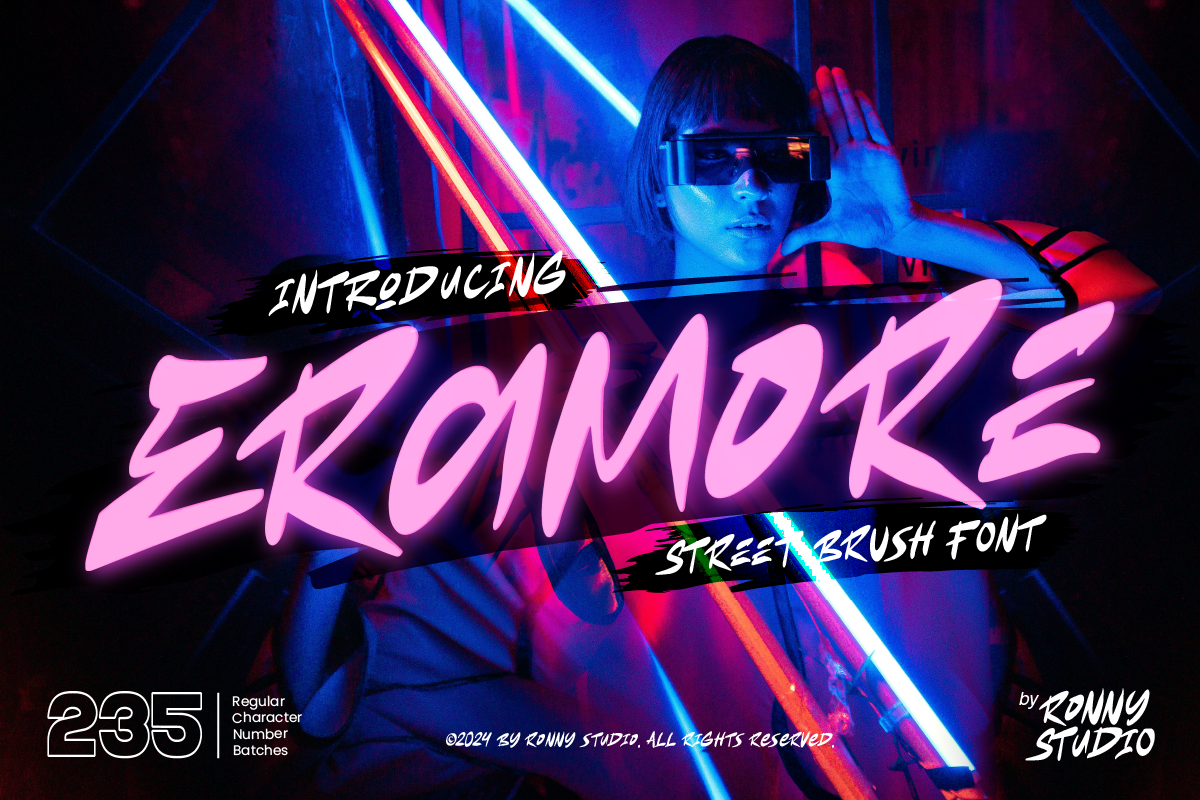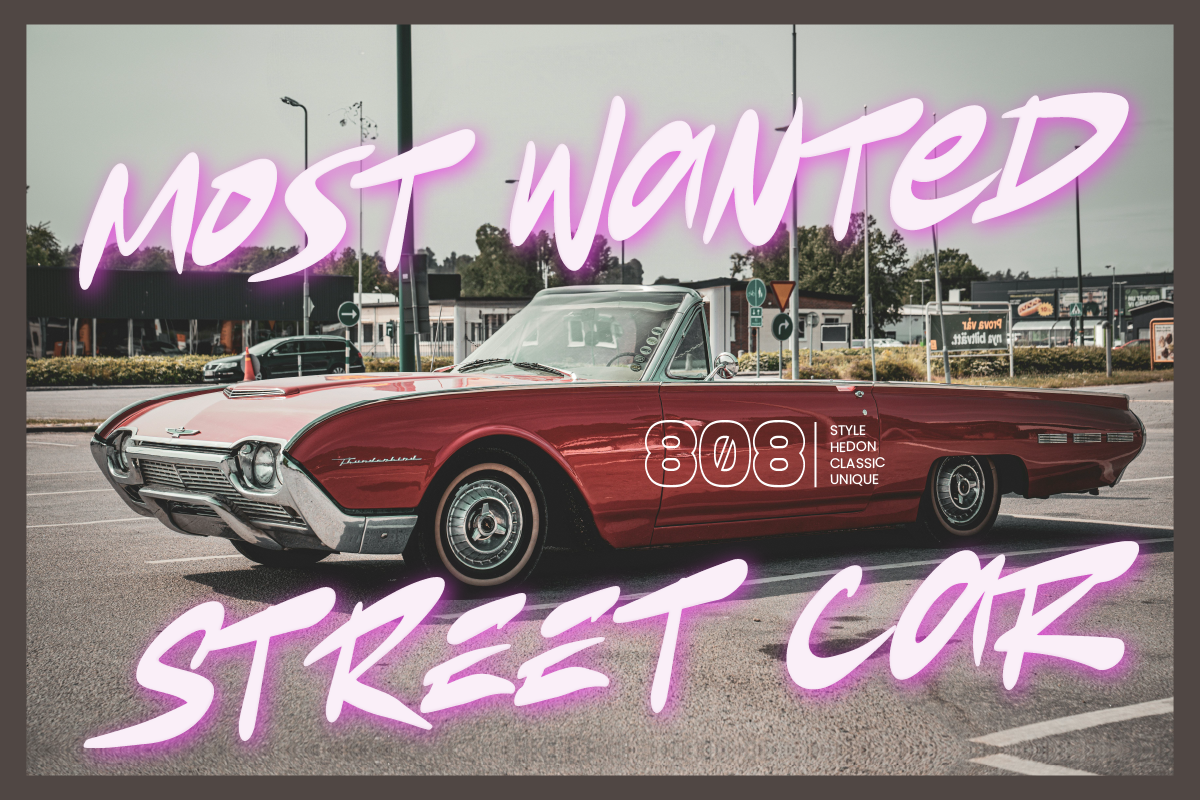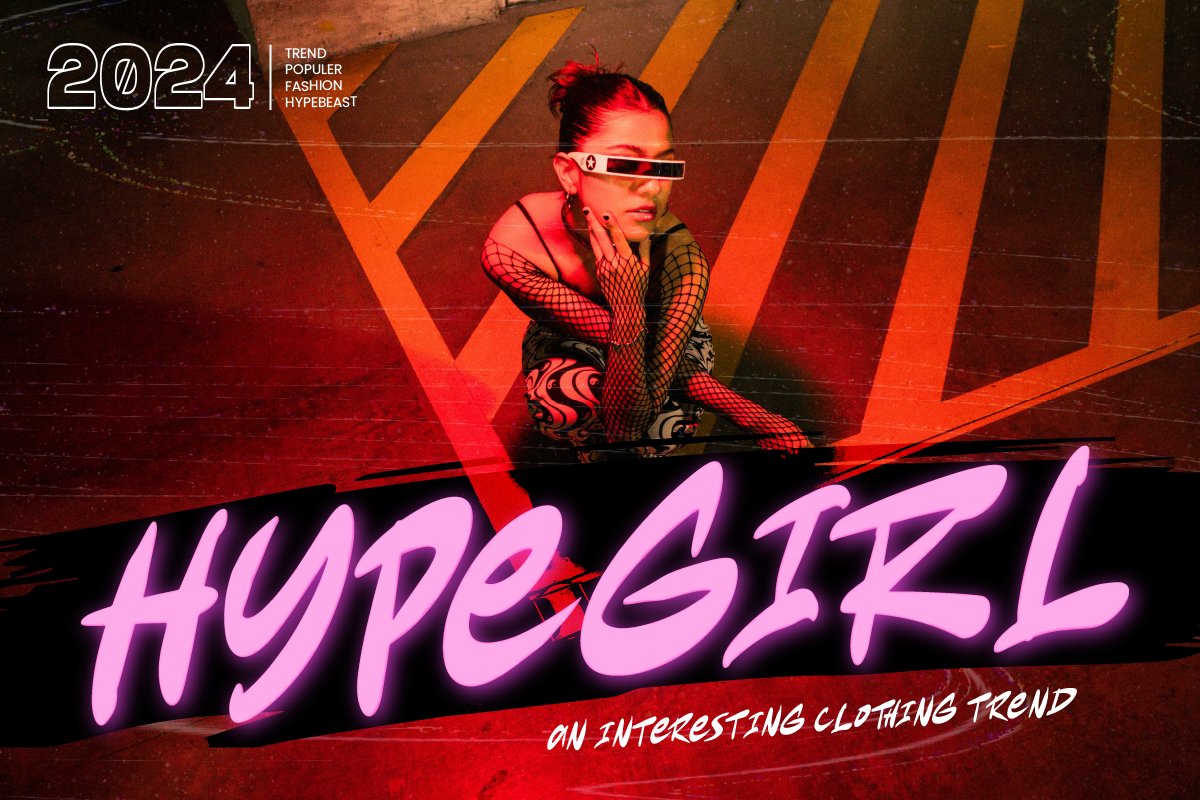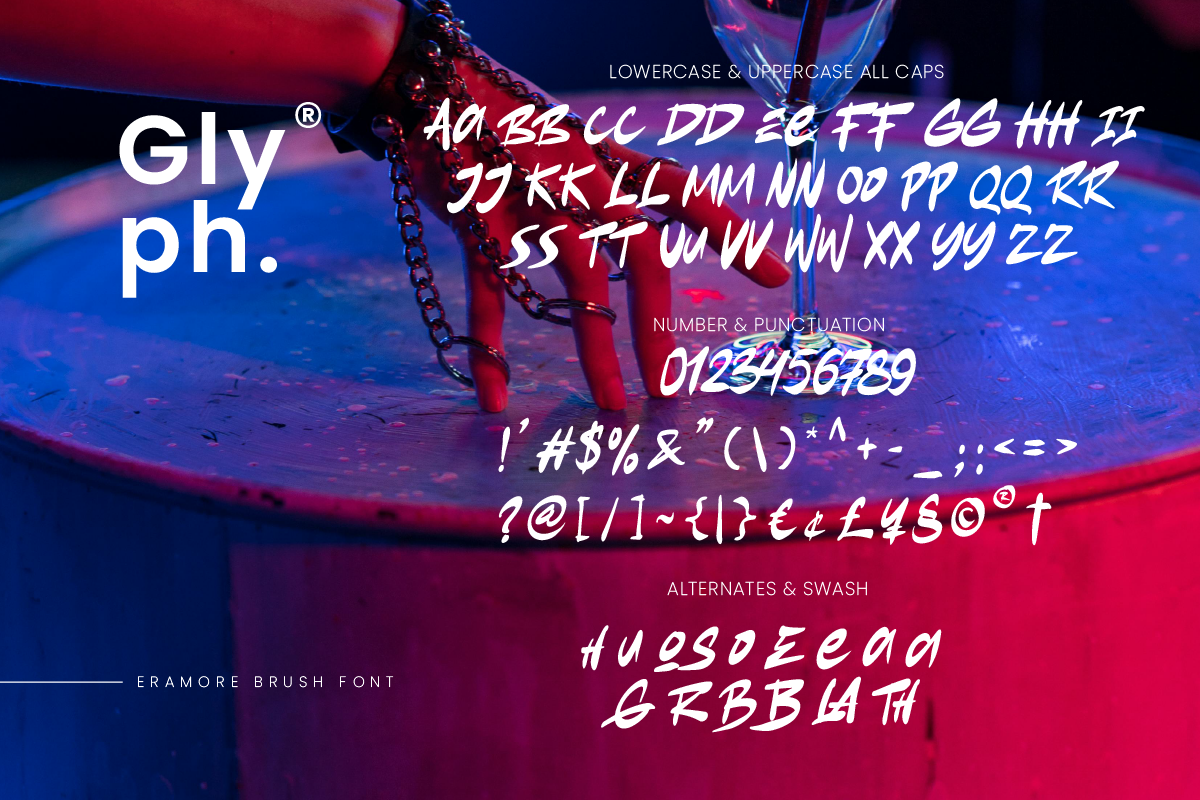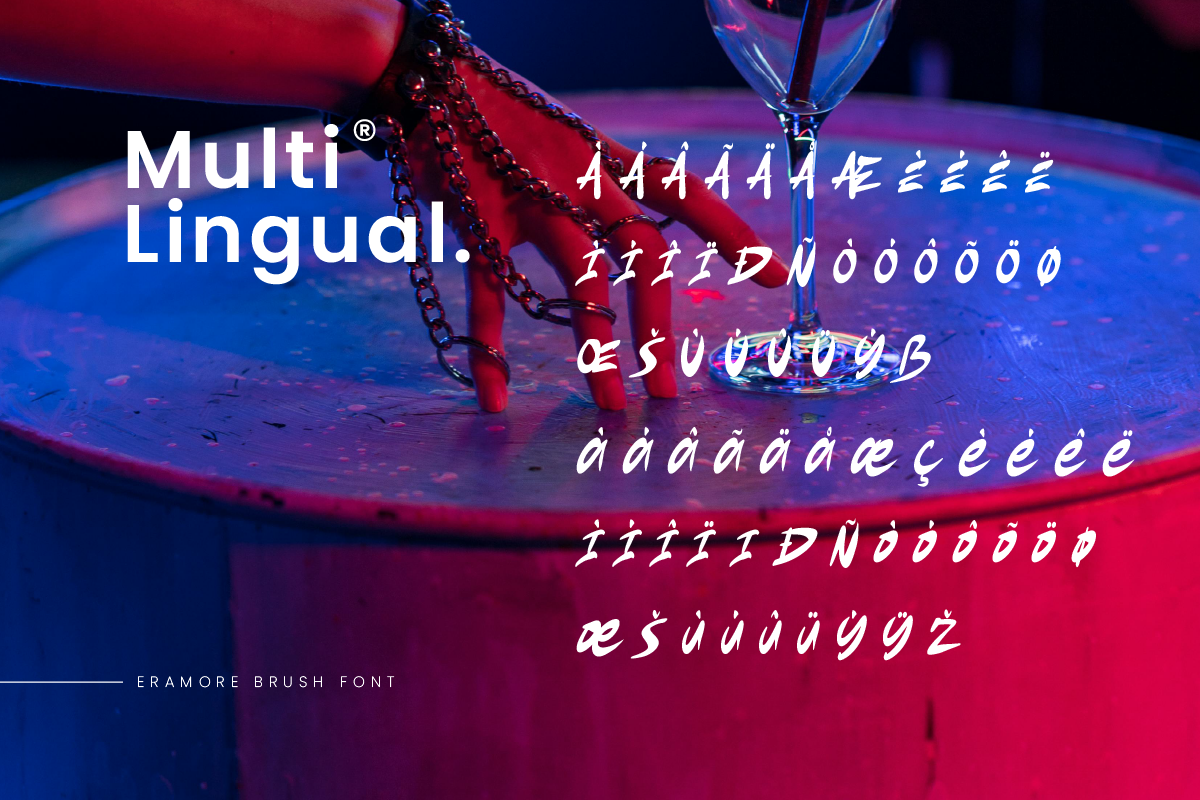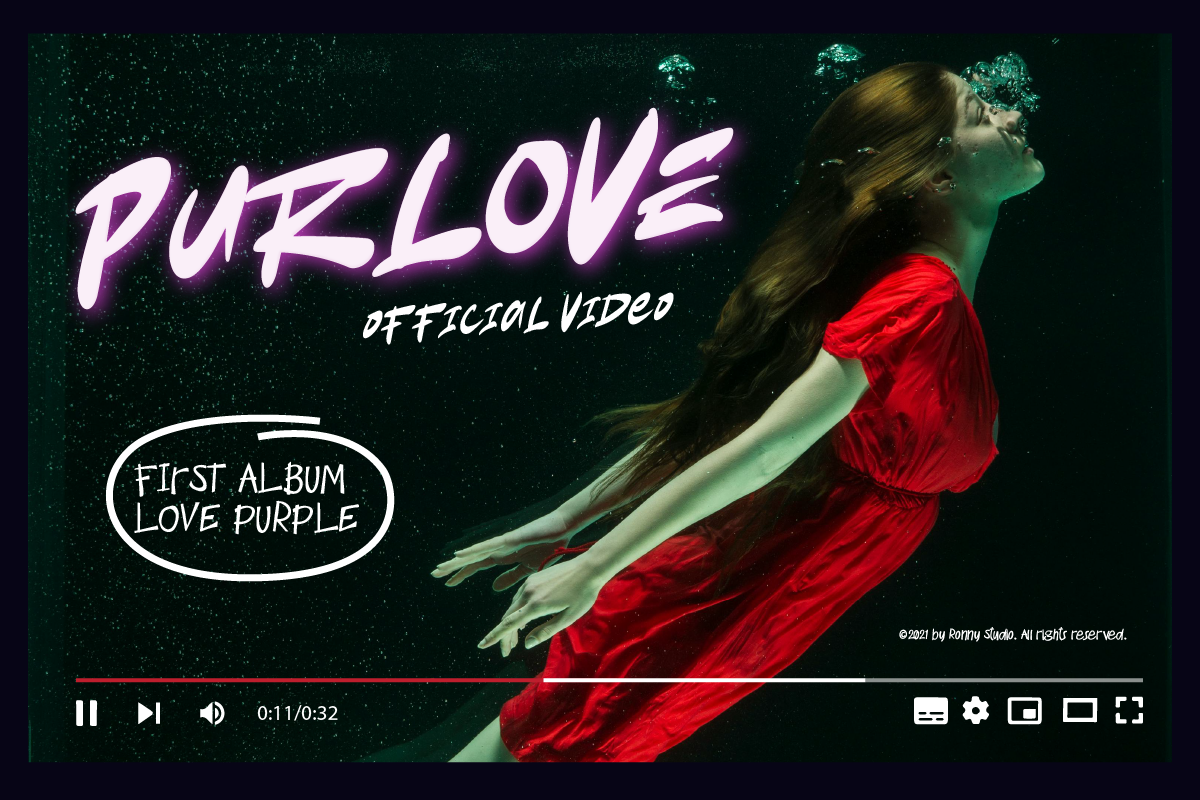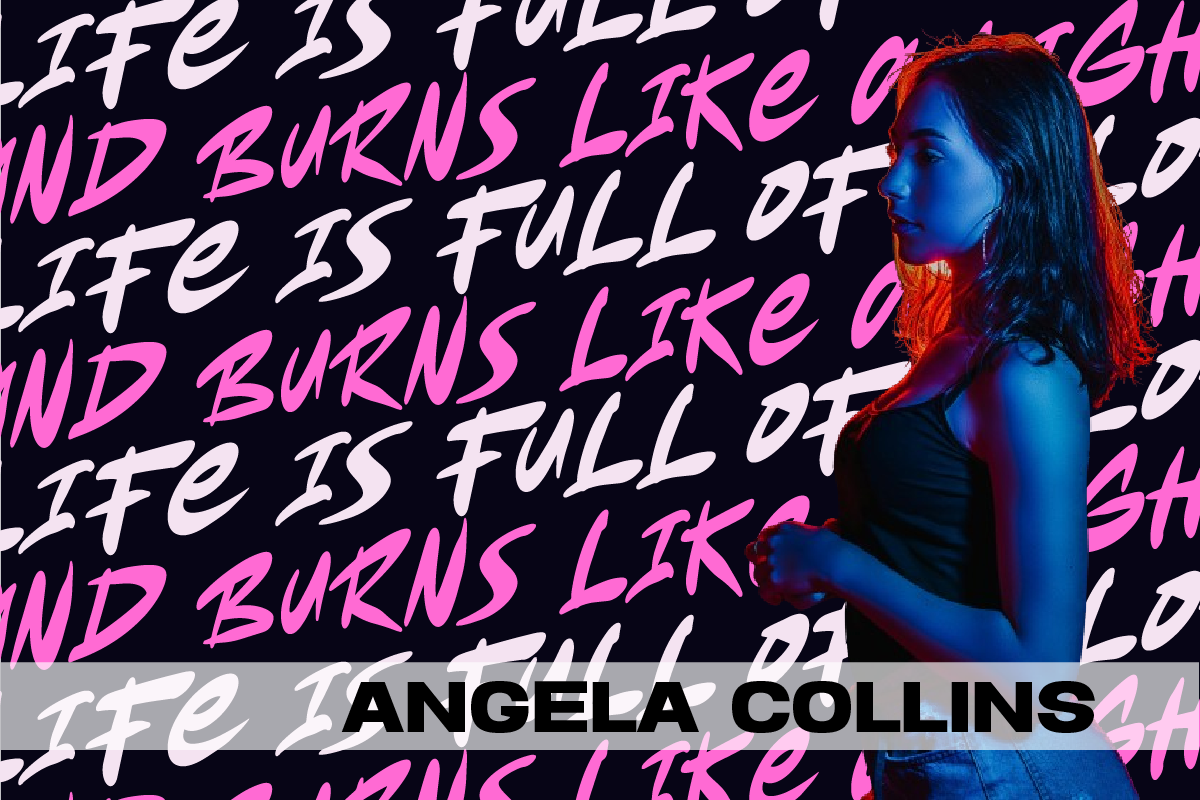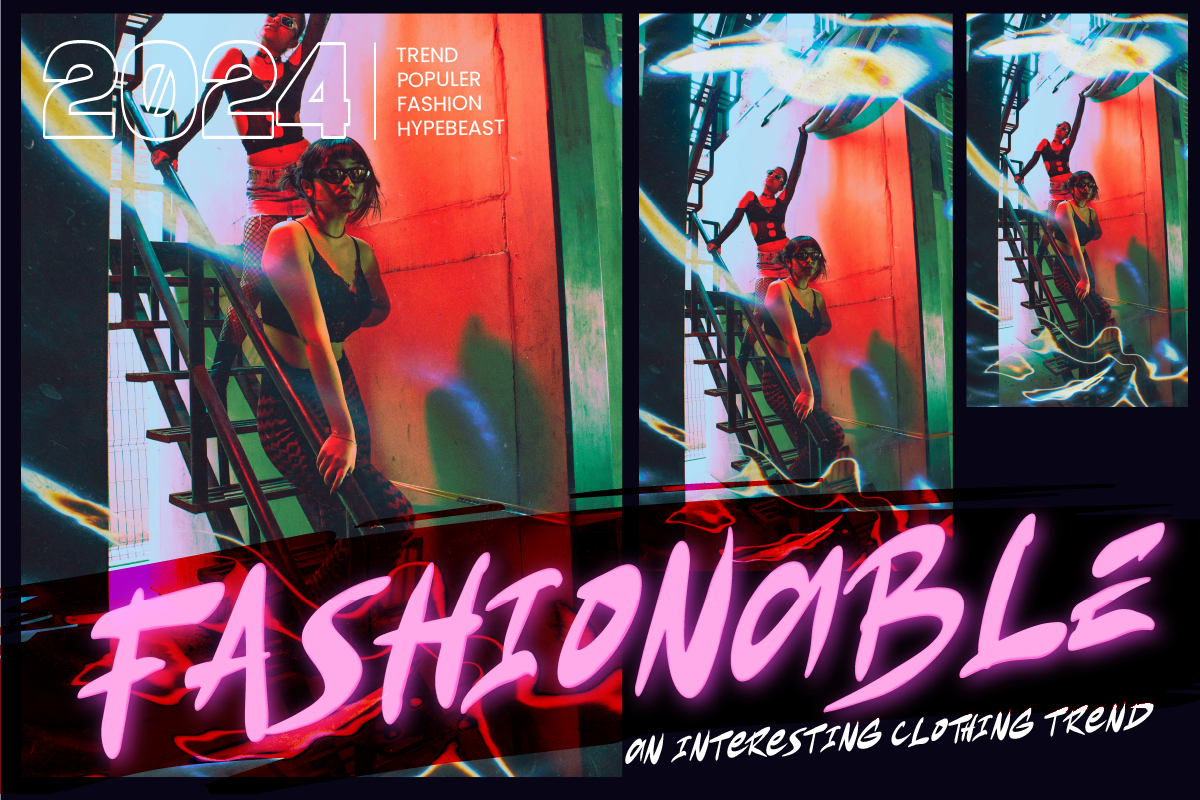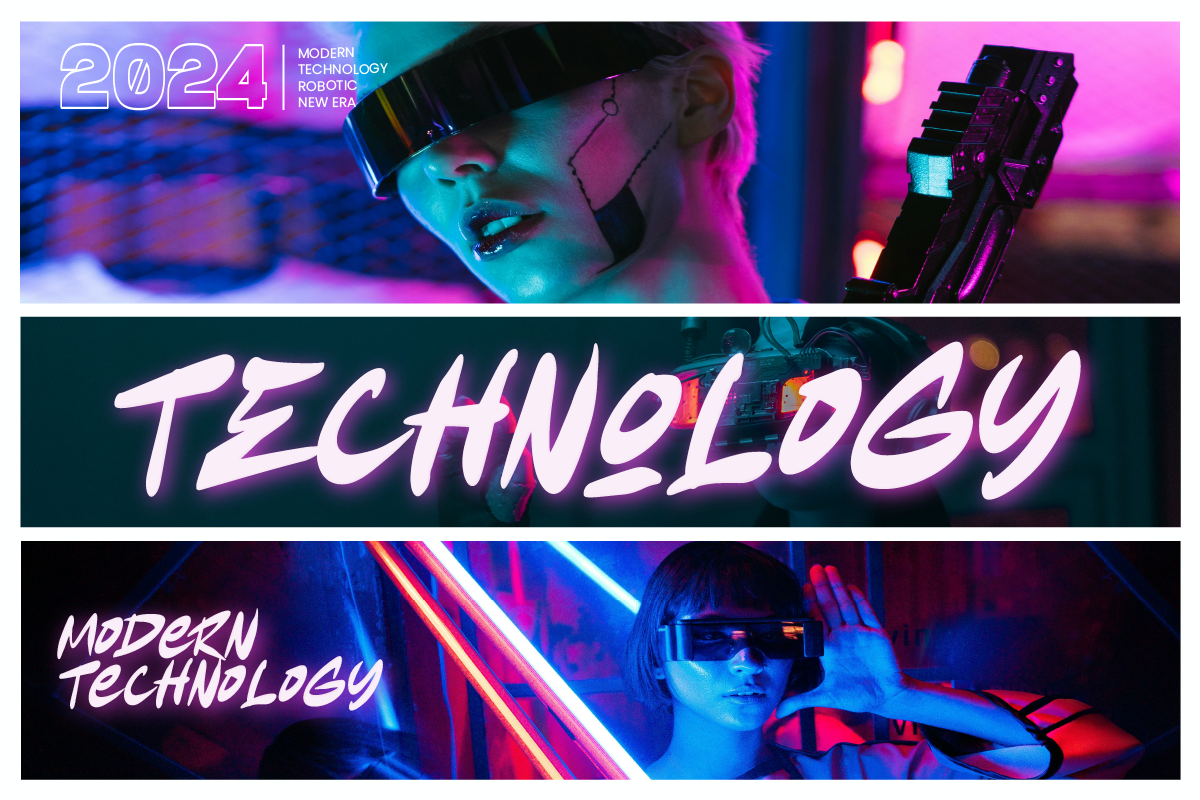
Eramore - Street Brush Font
"Eramore Street Brush" is a dynamic and expressive handwritten font, ideal for modern and energetic designs. With bold and bold characters, this font steals attention and brings an urban and street art feel. Suitable for posters, album covers, branding, and social media, "Eramore" gives a fresh and energetic impression.
• Uppercase & Lowercase
• Number & Punctuation
• Ligature & Alternate
• Multilingual Support